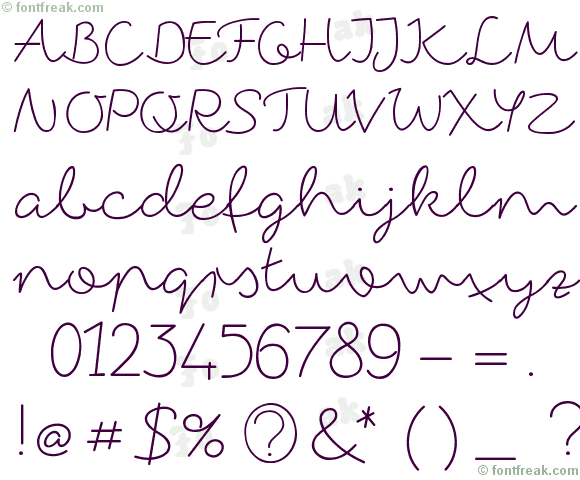
fox in the snow
About fox in the snow
The "fox in the snow" font by Roland Huse is a charming handwritten typeface that captures a sense of warmth and whimsy. This font exemplifies a playful yet elegant style, making it a popular choice among designers seeking to add a personal touch to their projects. Characterized by its slightly irregular strokes, the font boasts a medium stroke weight and a moderate contrast that enhances its handwritten feel. The spacing is thoughtfully designed to maintain legibility while providing a casual, flowing appearance, reminiscent of natural handwriting.
The versatility of the "fox in the snow" font makes it suitable for a variety of contexts. It shines in wedding invitations, where its soft curves and organic flow can evoke romance and intimacy. Additionally, it works beautifully for children's book covers, bringing an element of fun and creativity to the design. Restaurant menus also benefit from this font's friendly aesthetic, inviting patrons to experience a welcoming atmosphere. Furthermore, it is perfect for greeting cards, where a handwritten style can convey heartfelt messages in a unique way.
The target audience for this font includes graphic designers, small business owners, and content creators who appreciate the charm of handwritten typography. By incorporating this font into their designs, they can enhance brand identity and connect with their audience on a more personal level.
Author Roland Huse